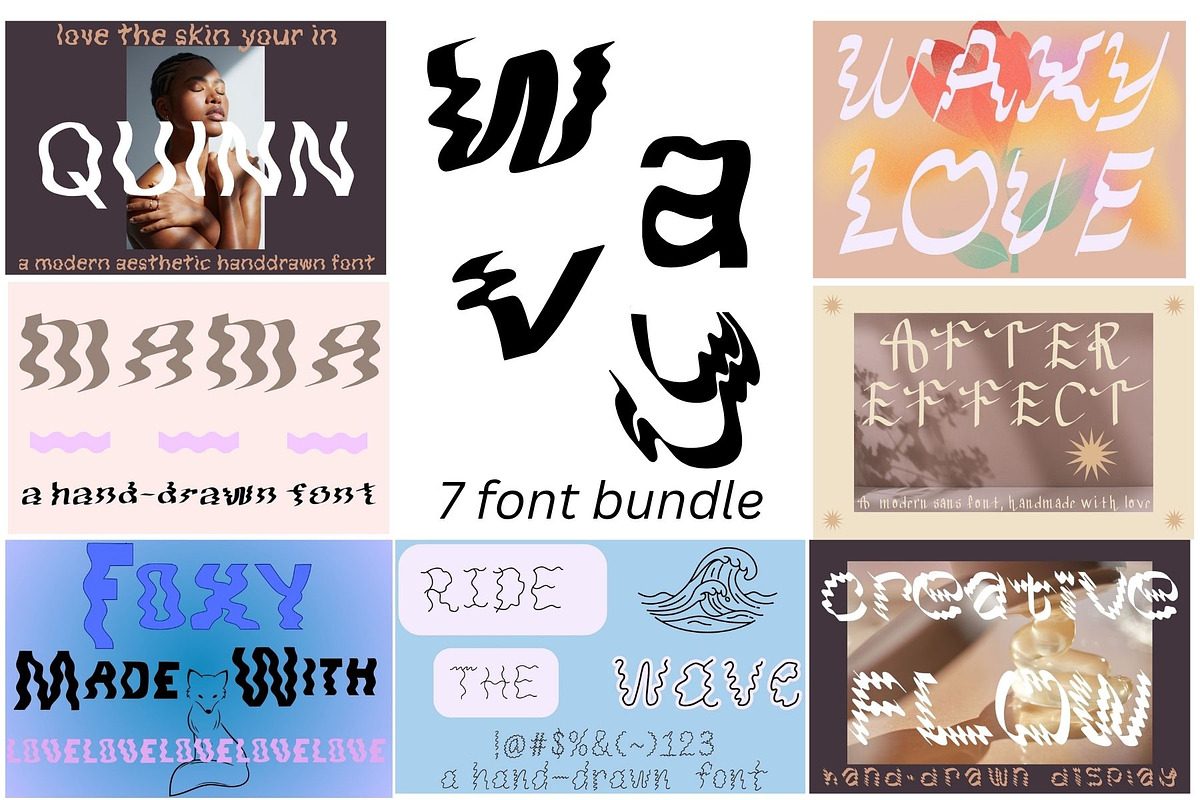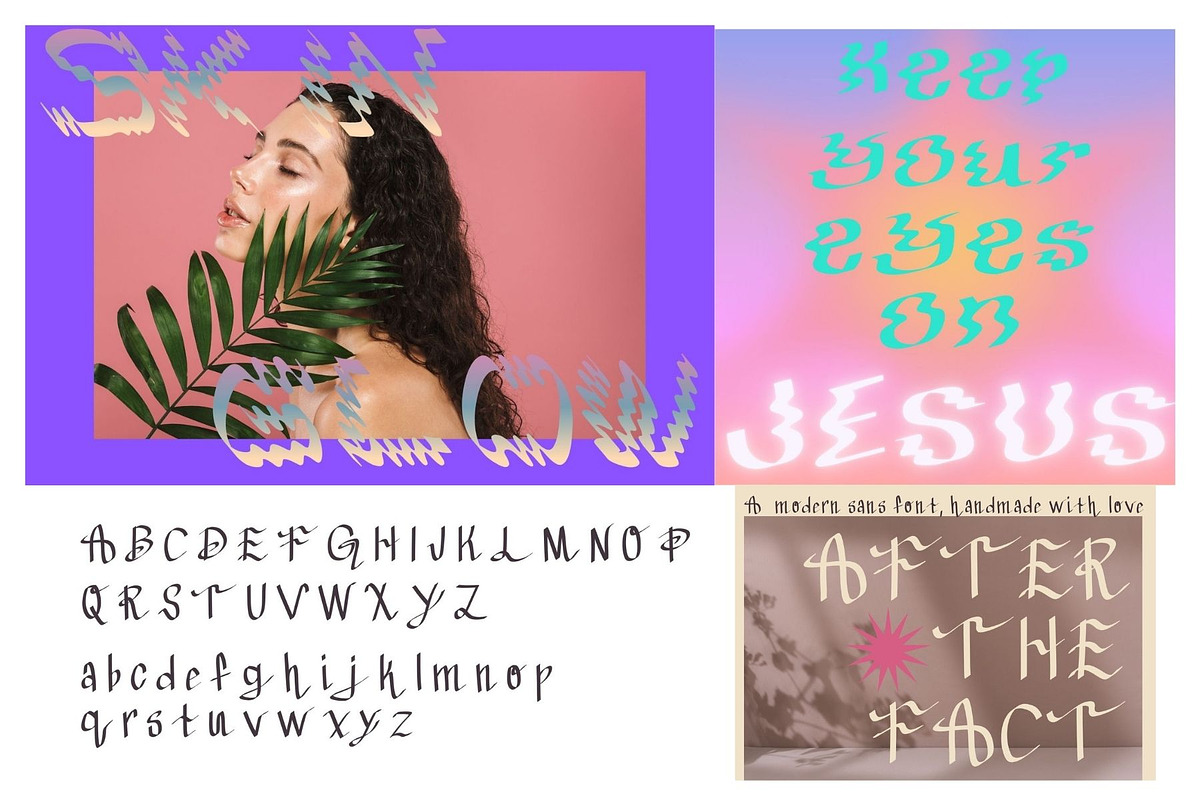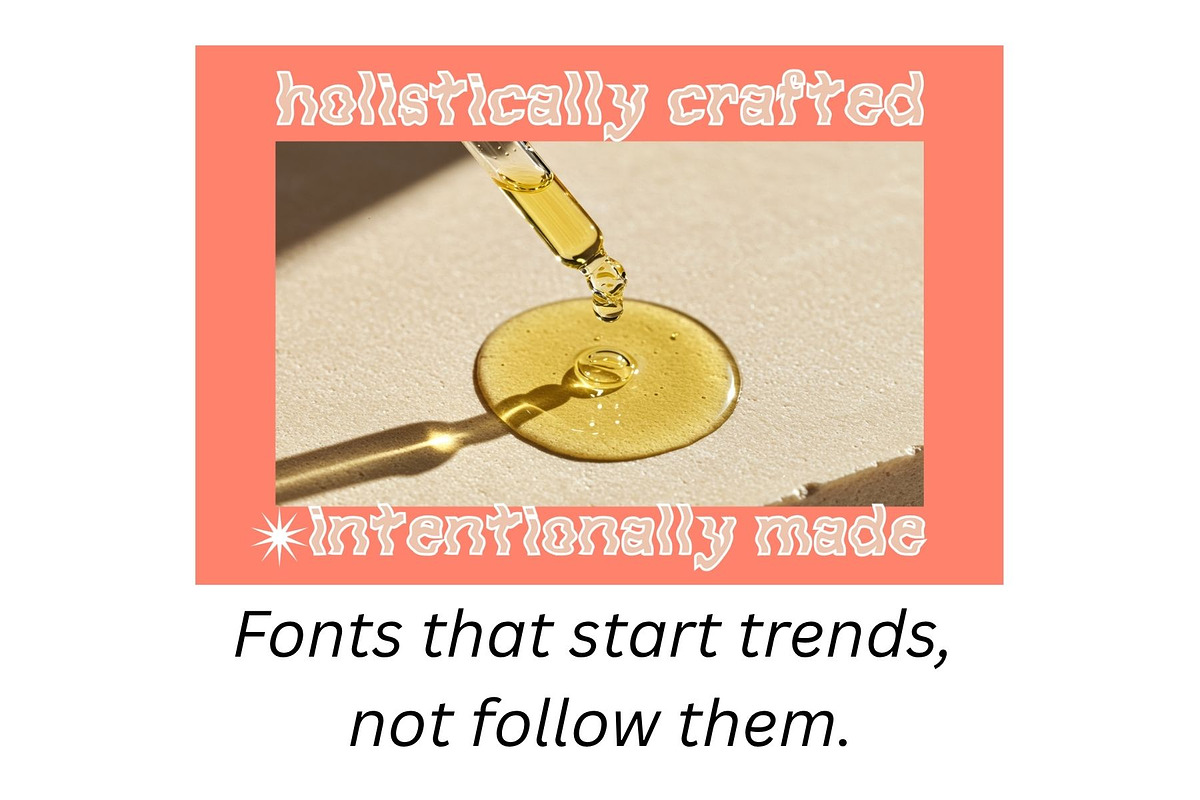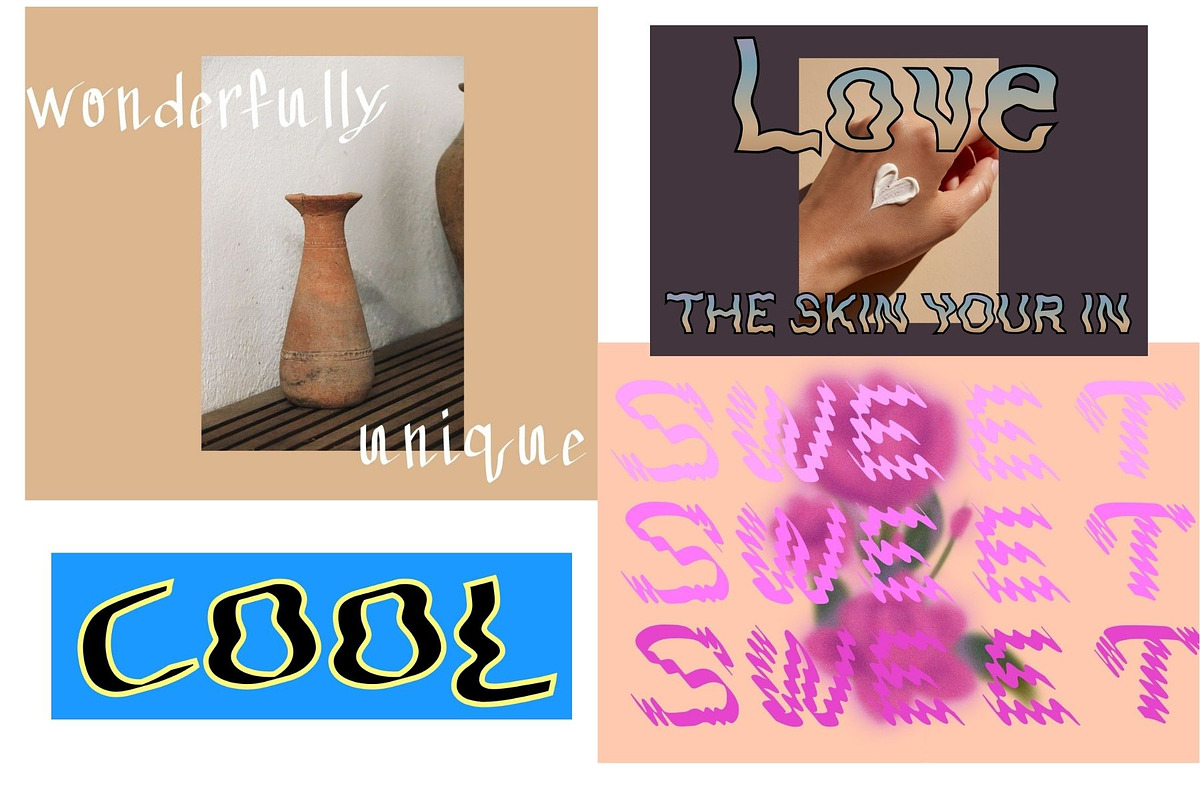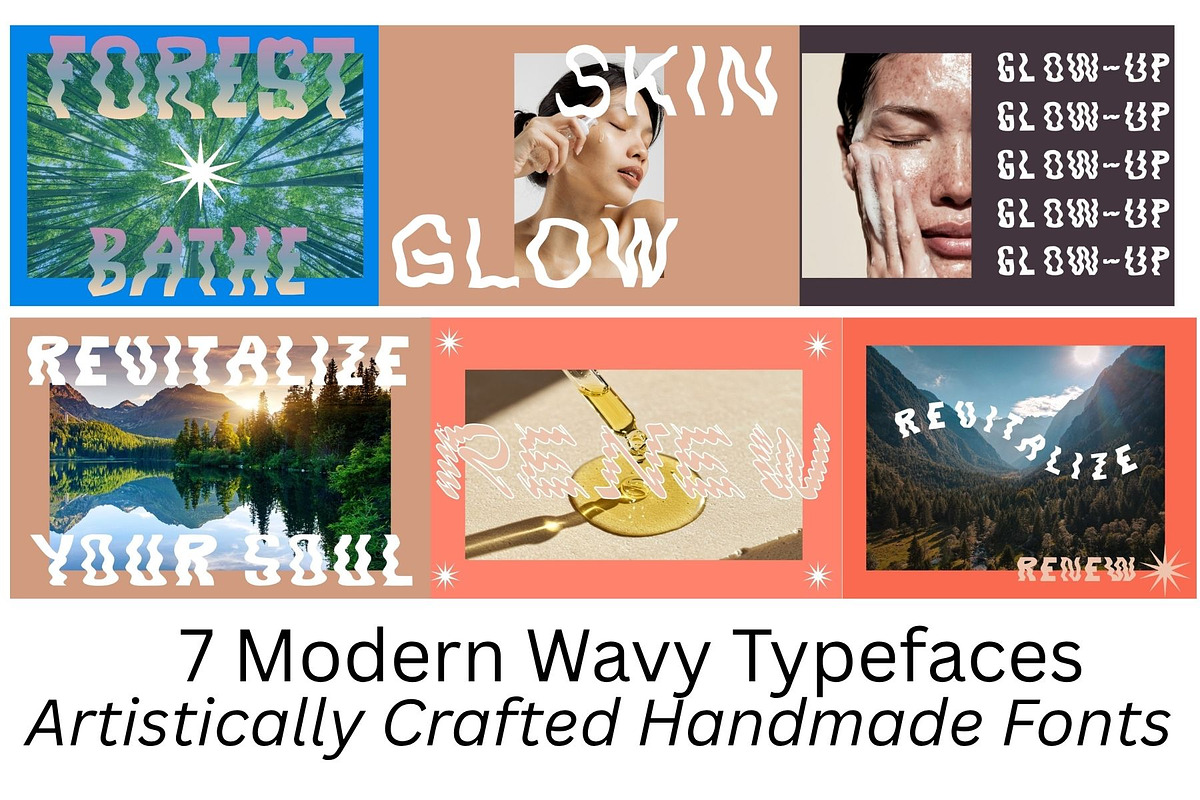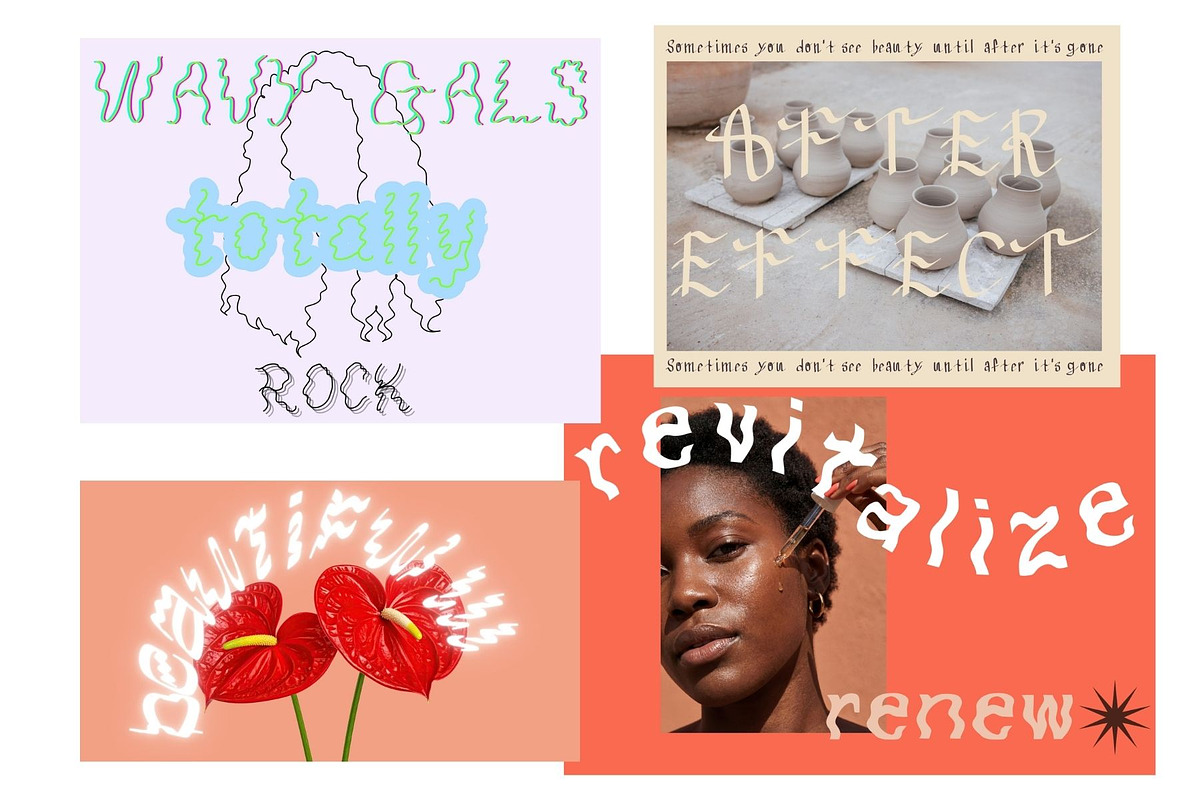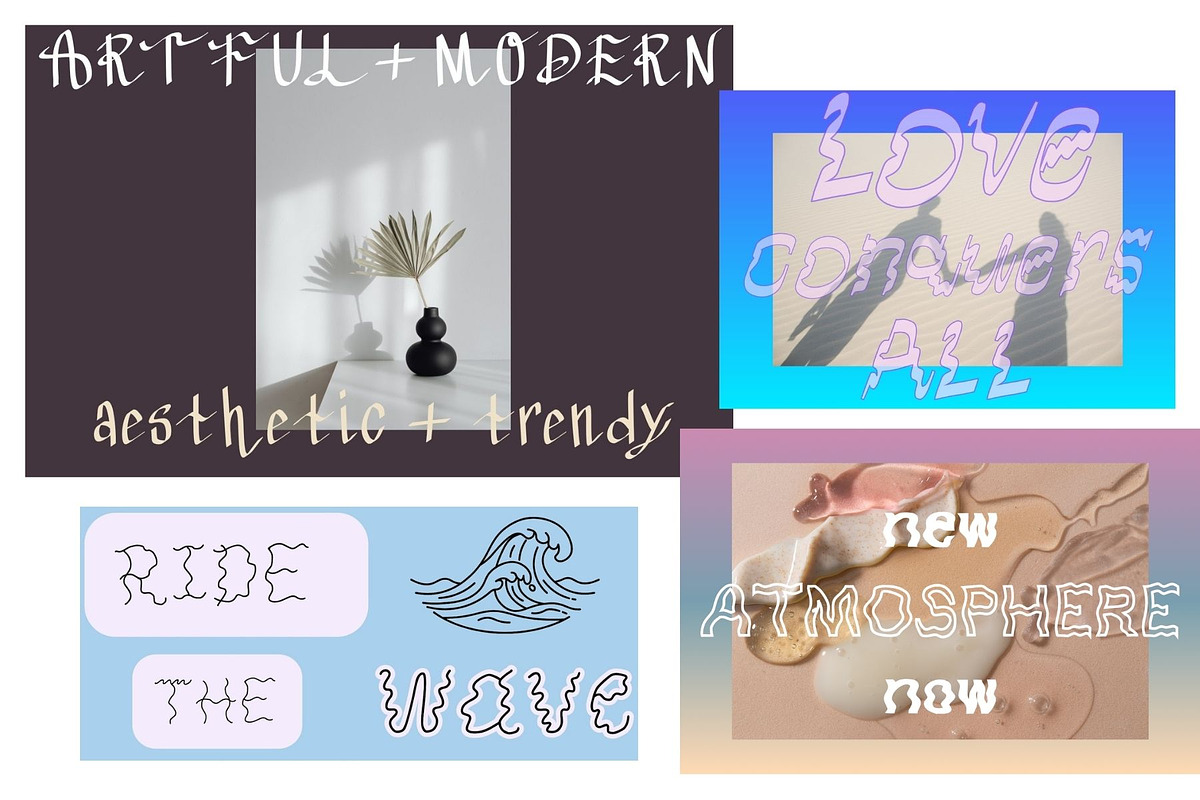
Bundle of 7 Modern Wavy Typefaces
7 FONT BUNDLE : \\\\MODERN WAVY AESTHETIC FONTS. \\\\
If you are a designer who loves artistic flair, effortless cool, and modern elegance - this font bundle is for you.
This bundle features 7 unique, hand-lettered , wavy fonts. These fonts go wonderfully well for : skincare brands, social media marketing, wellness brands, album cover design, logo and website design.
Artistically Crafted and one-of-a-kind, you won't find these fonts anywhere else!!! These fonts work exceptionally well as eye-catching display fonts, sure to intrigue your viewers, inviting them to lean-in to what it is you are offering them. Have fun Designing , and thank you for supporting hand-made craftsmanship.